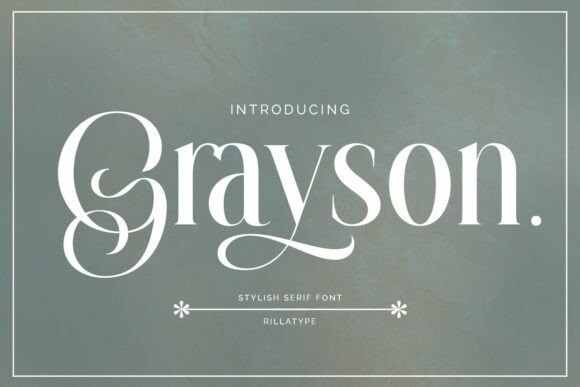
Grayson Font
Designer: Rillatype
Grayson Font feels playfully nostalgic and delivers an incredible vintage aesthetic. Use this display font to add that special retro touch to any design idea you can think of!